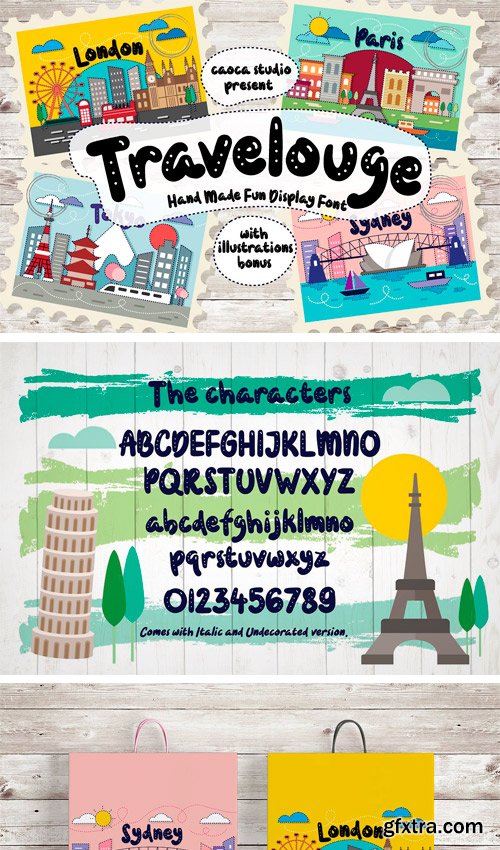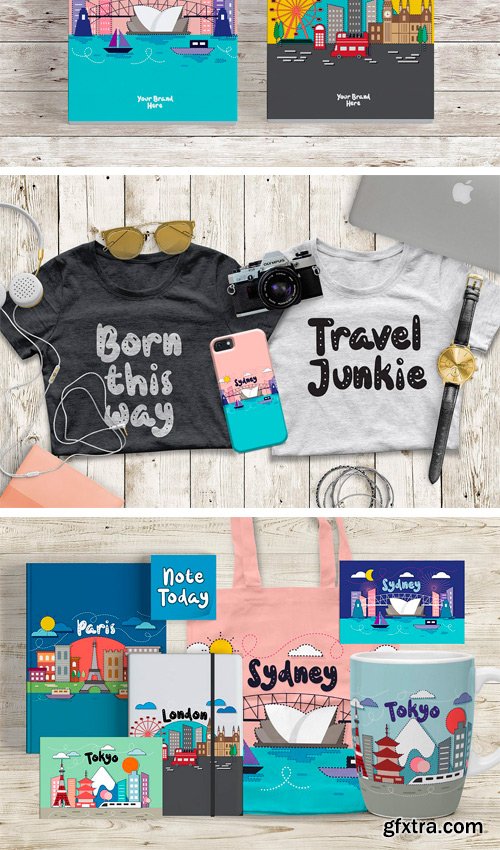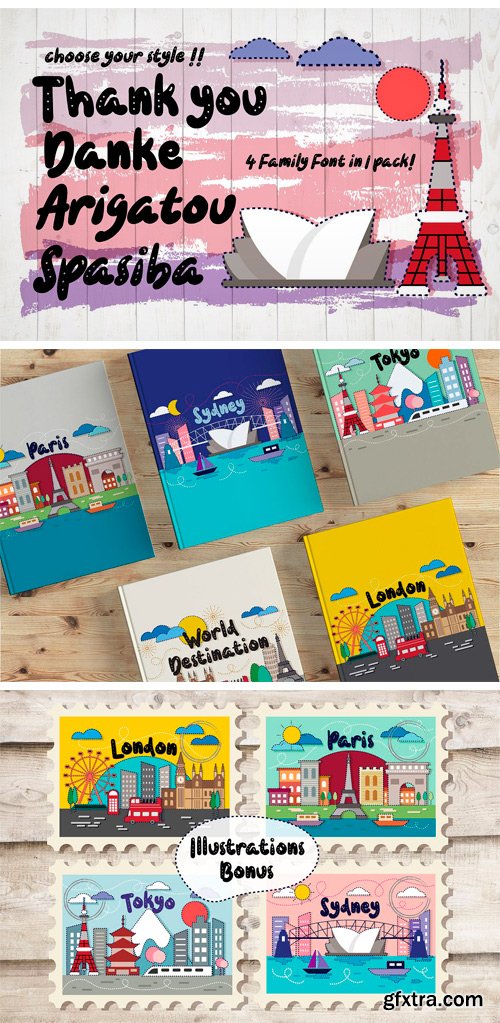
CM - Travelogue Hand Made Typeface 2315557
Hi there! Travelouge is a fun handmade typeface with 4 different styles.This font is suitable for post card,poster,menu, title, your brand, tag, goodie bag design/ souvenirs, stationery design and many more! You also got 4++ nice editable illustration.